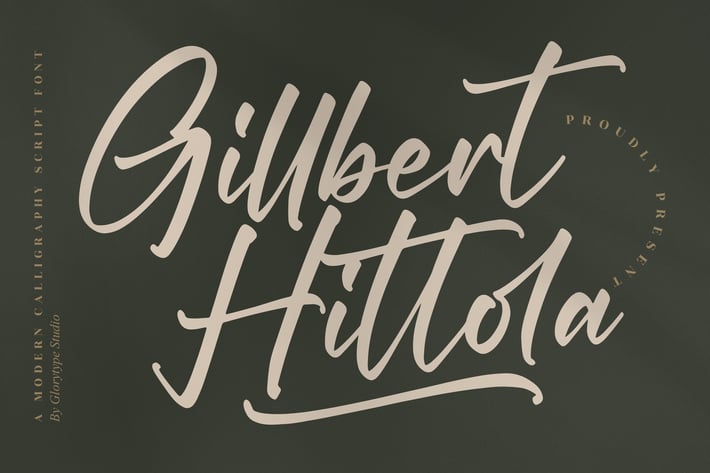
Gillbert Hittola Calligraphy Script Font
Gillbert Hittola is a modern calligraphy script with high-contrast strokes, lively baseline bounce, and dramatic swashes. Refined curves and stylish alternates deliver luxe, editorial energy that shines on branding, packaging, and statement signatures—while staying smooth and readable for everyday use.
+ OpenType ligatures, contextual alternates, and swash endings
+ Full A–Z, a–z, numbers, punctuation & symbols
+ Smooth curves with balanced kerning for clean results
Ink-with-attitude—confident curves and sweeping swashes that turn any name into a signature.
Design by Glorytype Studio